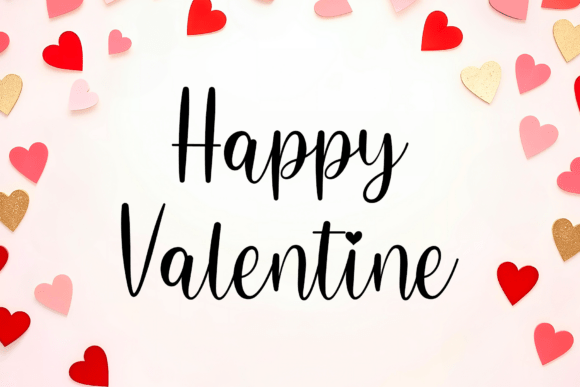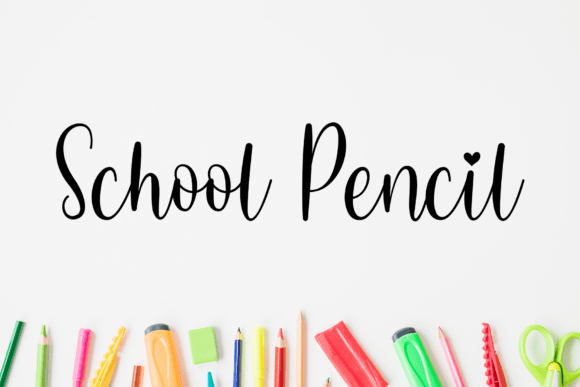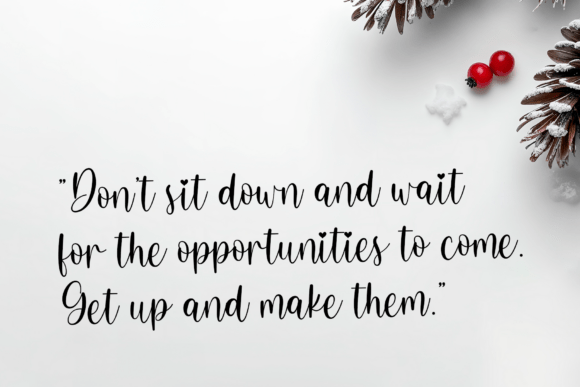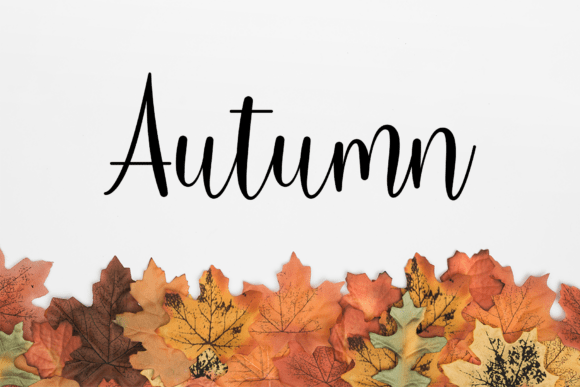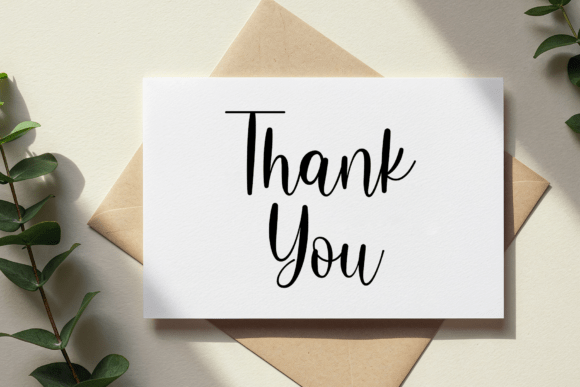
Unlock the Magic of Handwritten Design with the Barbie Font
Remember that moment when a blank canvas sparked an idea, and your imagination ran wild? The thrill of bringing a concept to life is what drives creatives to push boundaries and innovate. For designers, finding the perfect font can be the key to unlocking that creative potential. Enter the enchanting Barbie Font, a charming handwritten typeface that brings a breath of creativity to each design project.
With its delightful blend of charm and elegance, the Barbie Font adds a level of imagination and vibrance to any content, from logos to headlines. This captivating font embodies vitality, making each design project resonate with energy and artistic flair. Whether you’re a seasoned designer or just starting out, the Barbie Font is a valuable addition to your toolkit, allowing you to dazzle your audience with every text.
Barbie Font Key Features
- Font Family: The Barbie Font is a custom-designed font, not a standard font family.
- Unique Characteristics: The Barbie Font features a distinctive, playful, and feminine design, with rounded shapes and elegant lines.
Barbie Font Review
I recently had the chance to work with the Barbie Font, and I must say it’s a unique and intriguing typeface. One of the things that works well is its playful and whimsical feel ✨. The font is designed to evoke a sense of childhood wonder, and it does just that. It’s perfect for projects that require a touch of nostalgia or a dash of fun.
Another strength of the Barbie Font is its versatility ✨. It can be used for a wide range of applications, from branding and advertising to editorial and design. The font is available in multiple weights and styles, making it easy to customize to suit your needs.
- ⚠️ The font may not be suitable for formal or professional projects, as it can come across as too childish or frivolous.
- ⚠️ The font may not be as legible in small sizes or at a distance, due to its playful and intricate design.
Overall, I think the Barbie Font is a great choice for designers who want to add a touch of fun and whimsy to their projects. While it may not be suitable for every project, it’s a great option for those who want to stand out from the crowd. With its playful feel and versatility, the Barbie Font is sure to be a hit with designers and clients alike.
For optimal results, use the Barbie Font in bold or italic styles to add emphasis to your text. You can also combine it with other fonts for a unique and playful look.
The Barbie Font is ideal for:
- Toy packaging and branding.
- Whimsical and playful designs.